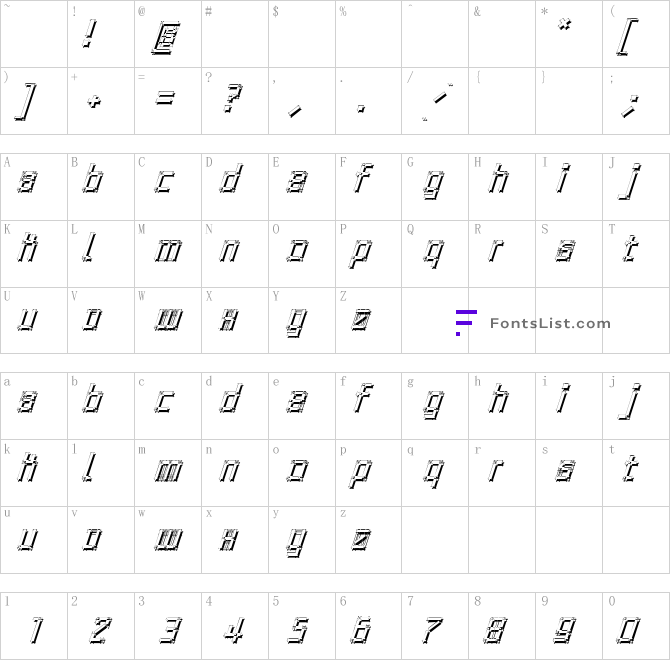
- Font Name:Architypo
Architypo-Oblique.ttf is a very beautiful artistic font, Architypo-Oblique.ttf is widely used in the design and printing of various books and pictures,Architypo-Oblique.ttf has a strong visual impact,Architypo-Oblique.ttf is a commonly used font in newspapers, magazines and books, and is used in posters, e-commerce Poster design, store design, logo design, font design and other fields.Architypo-Oblique.